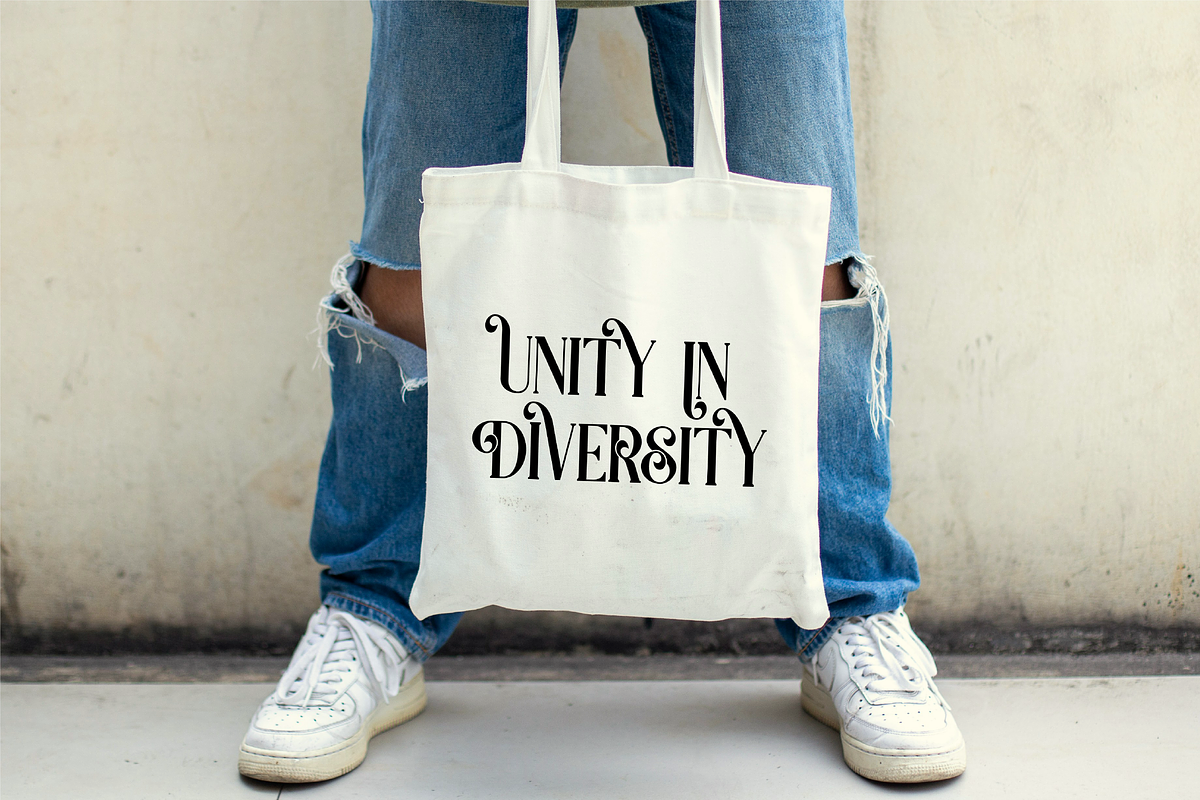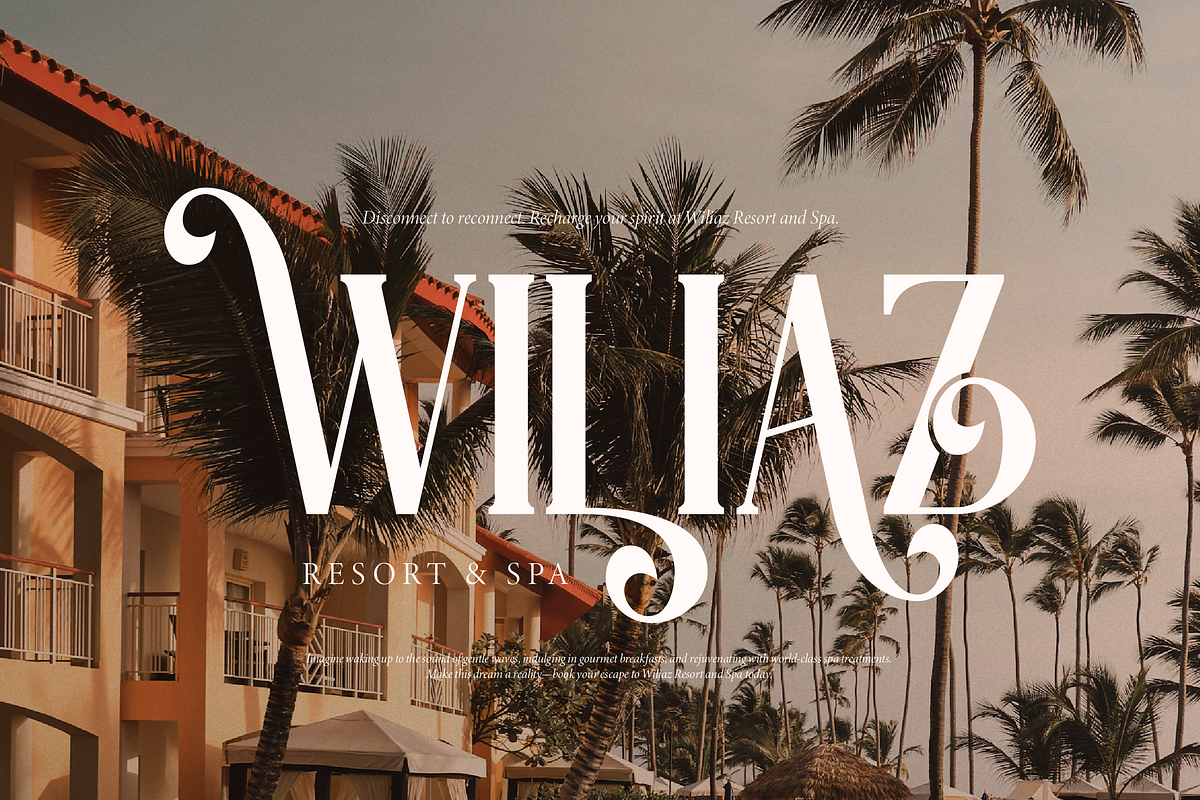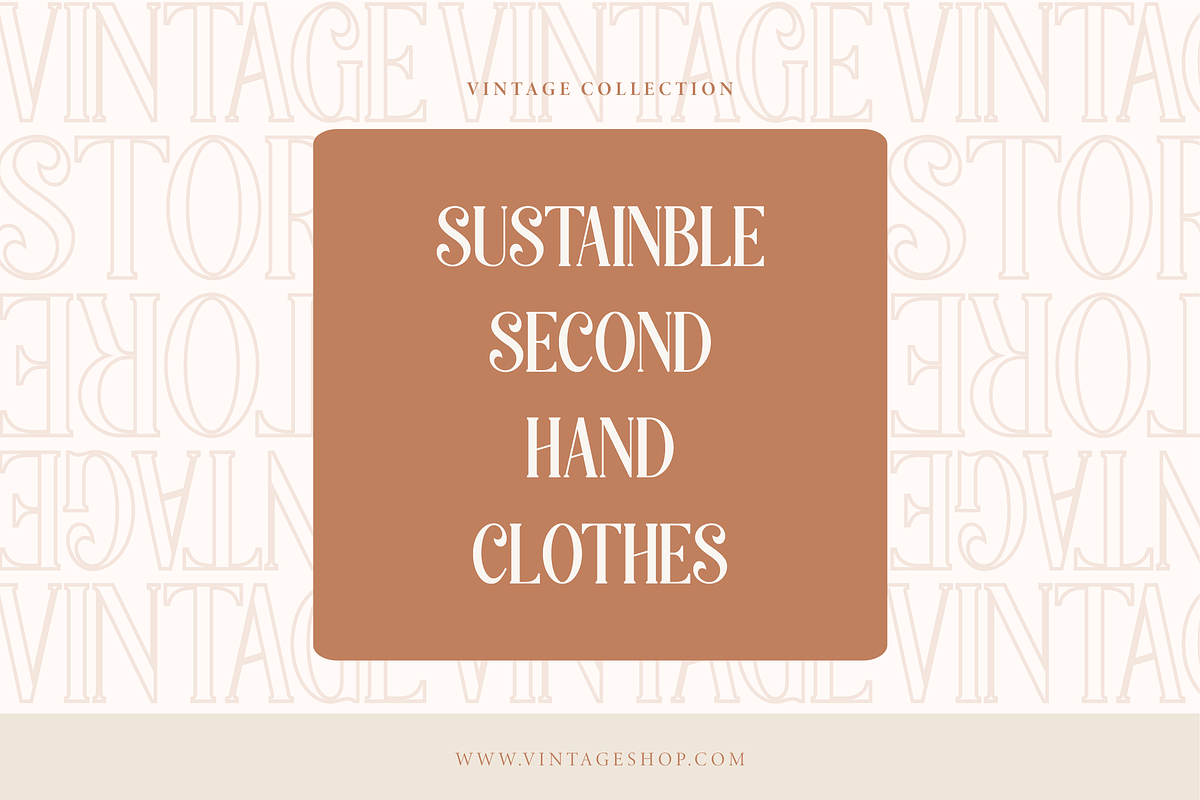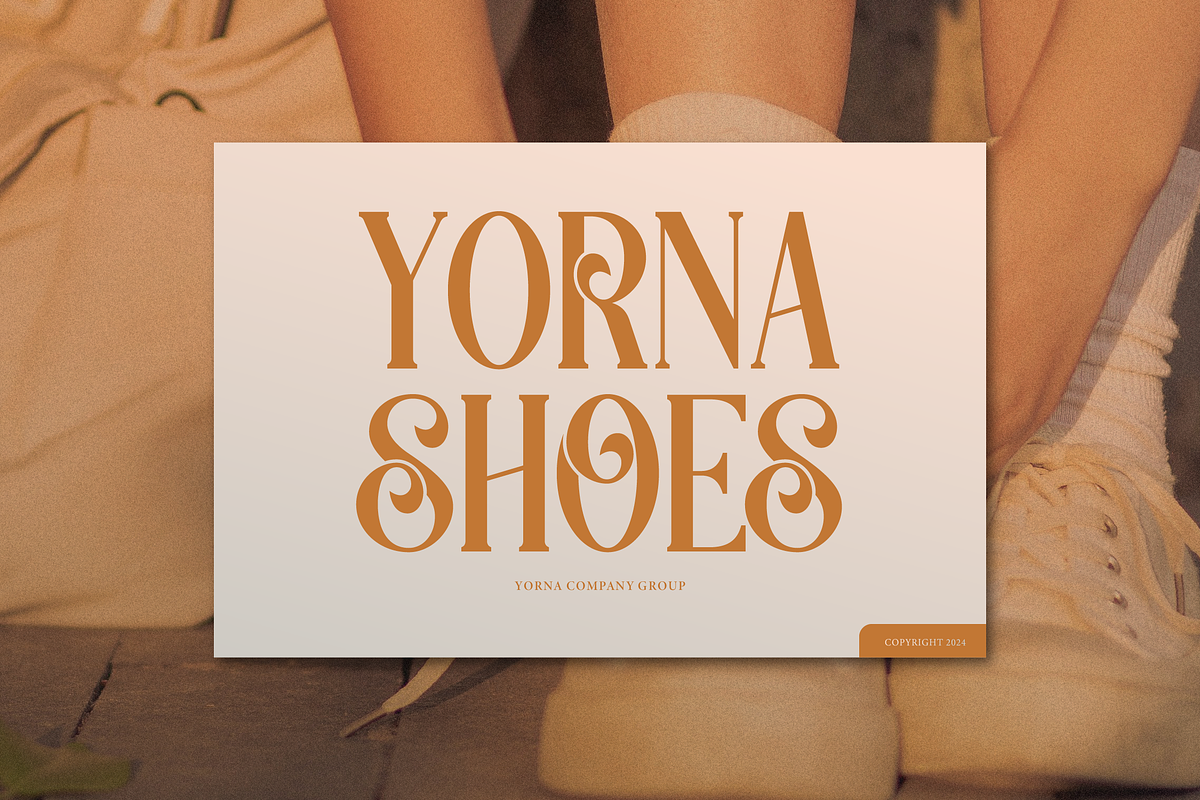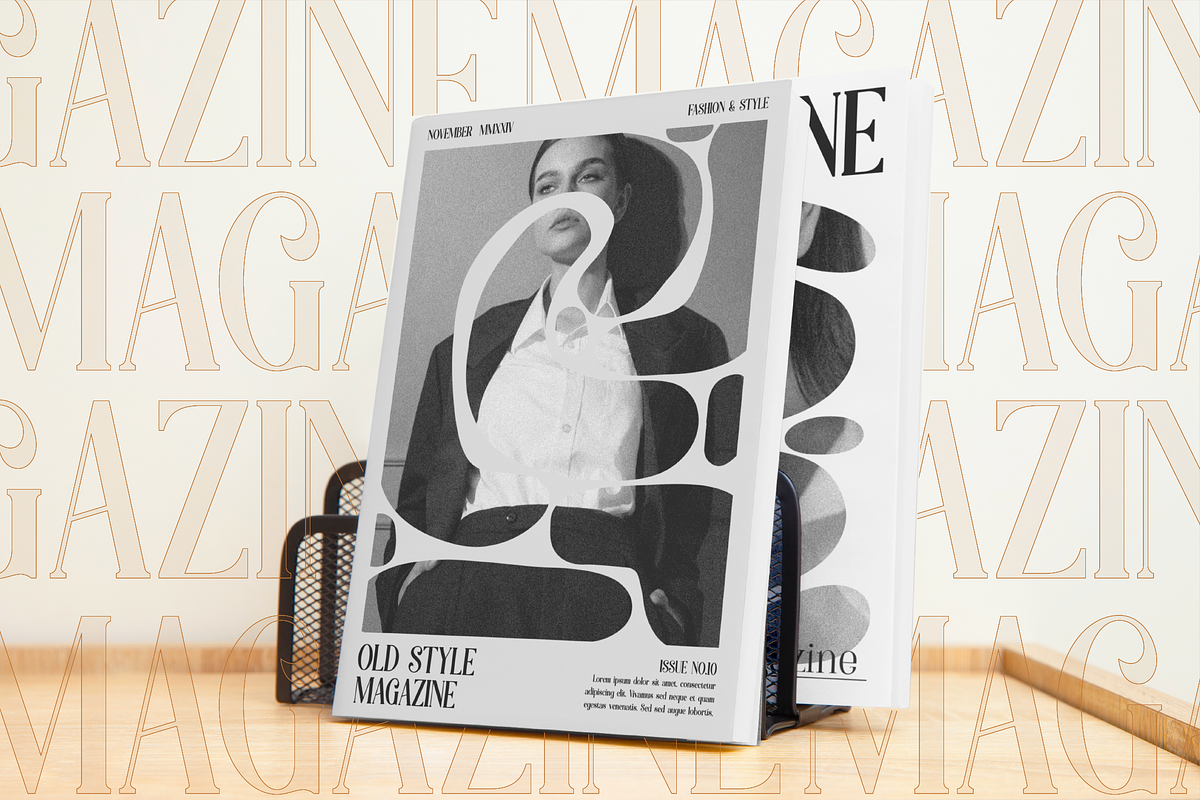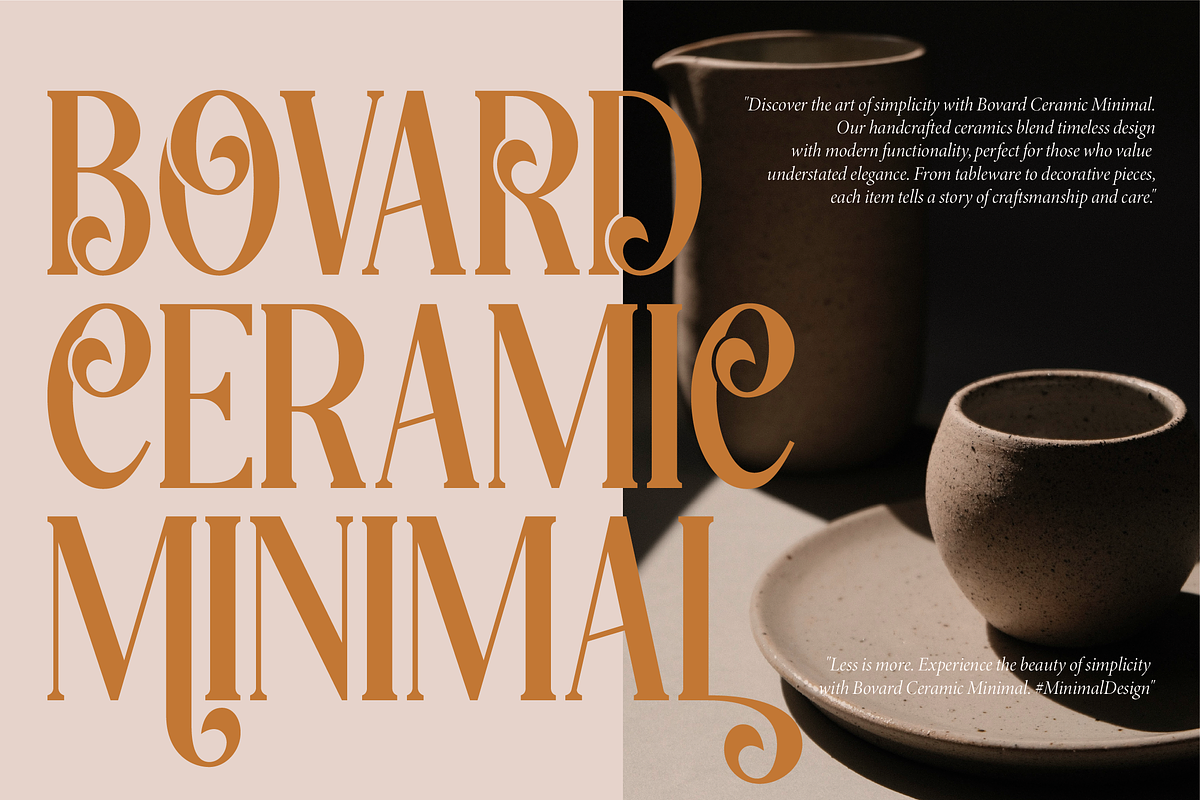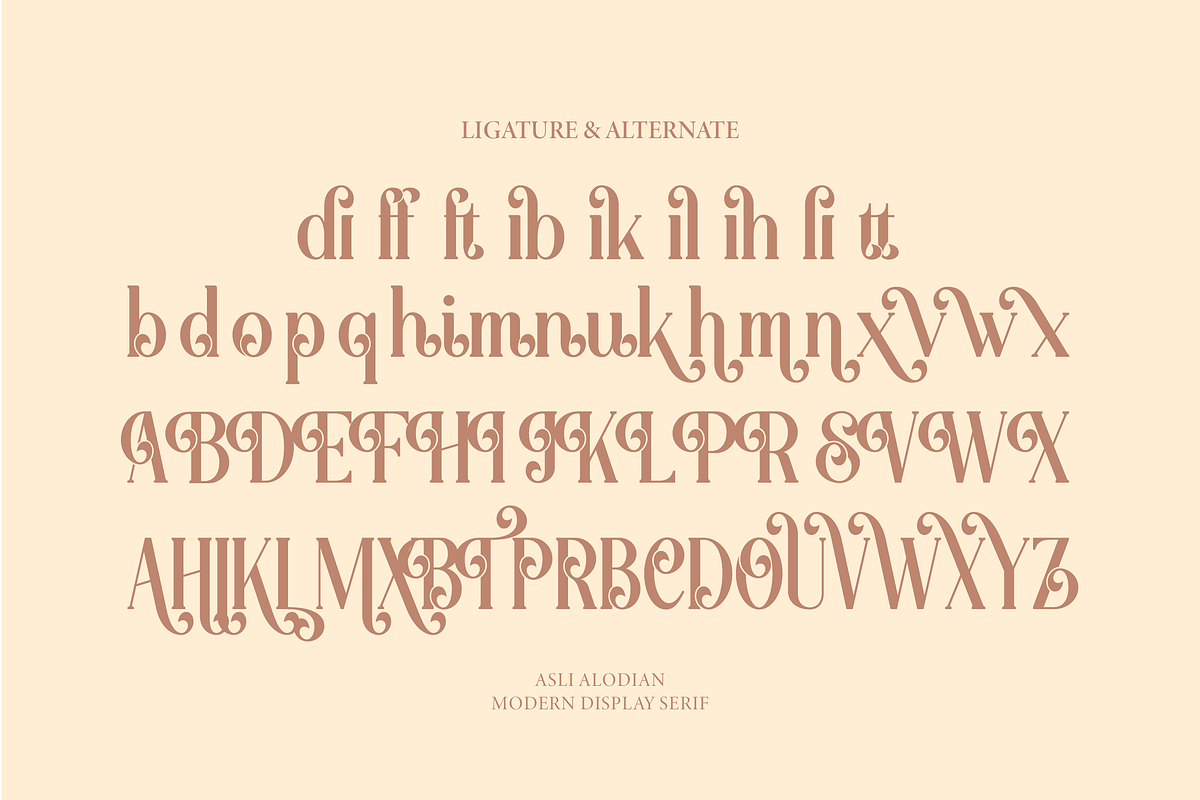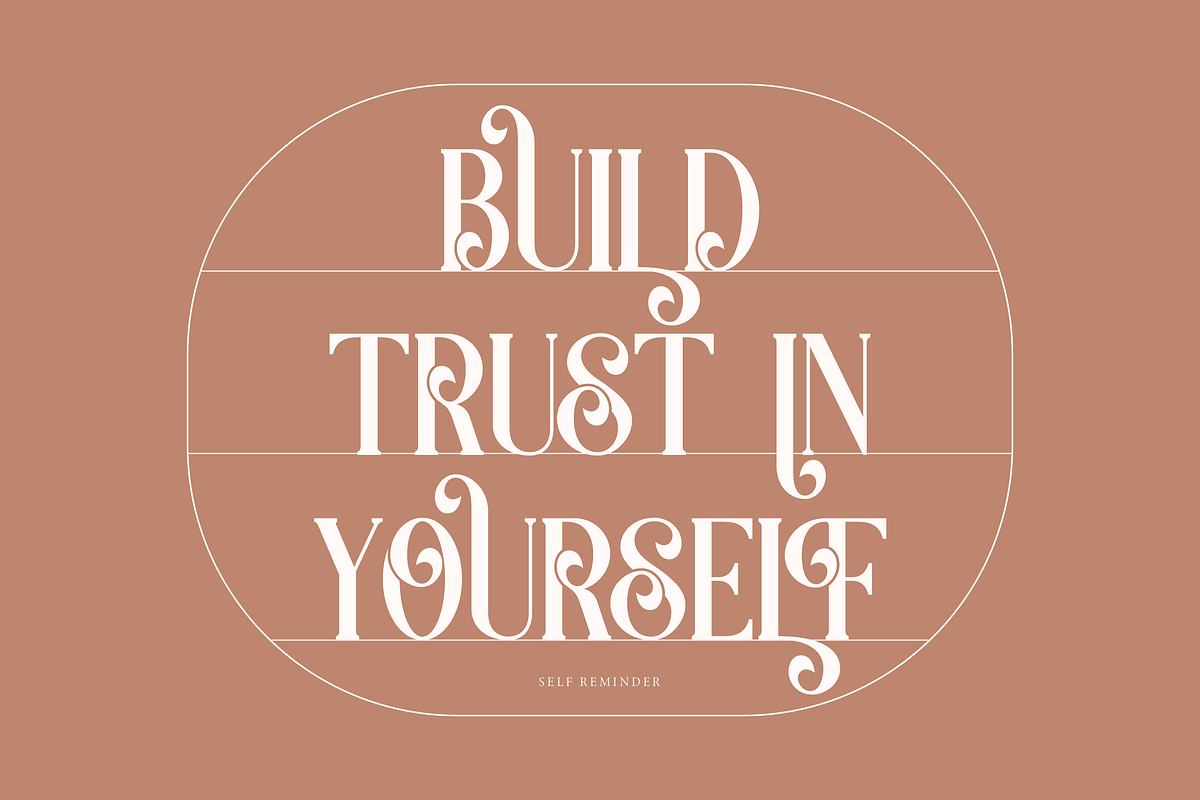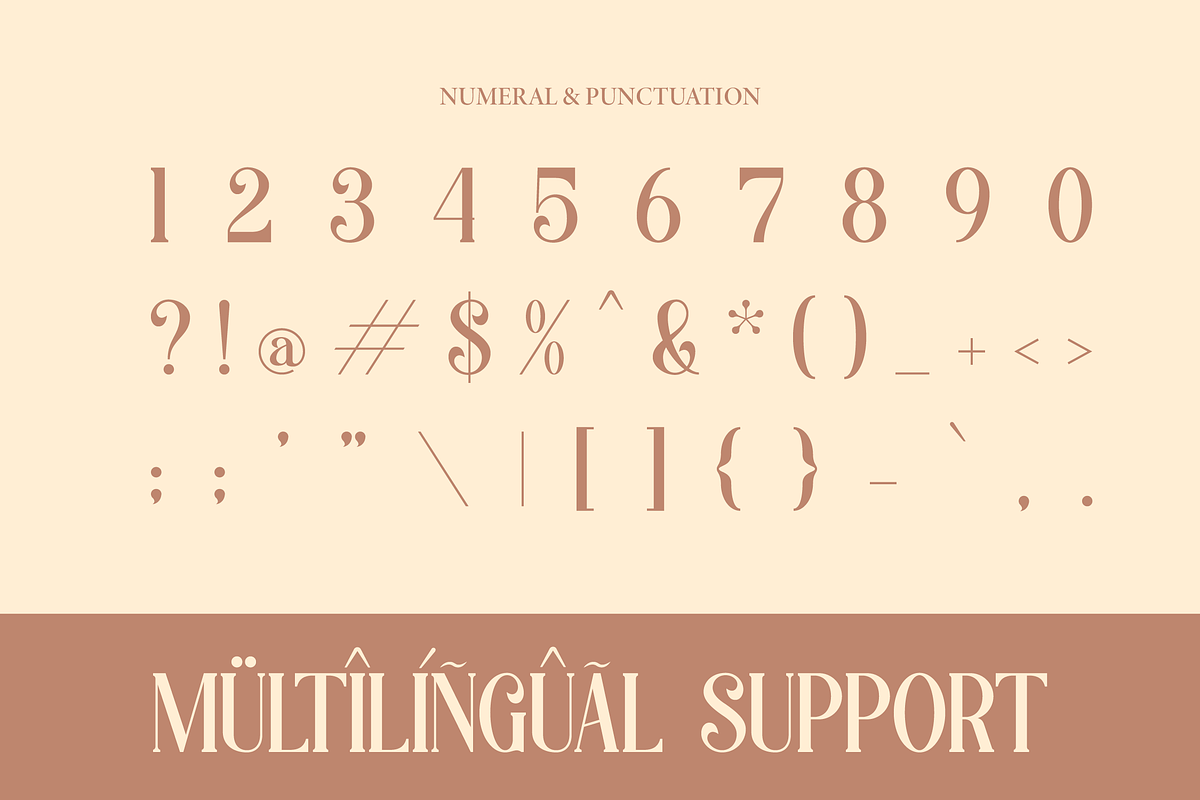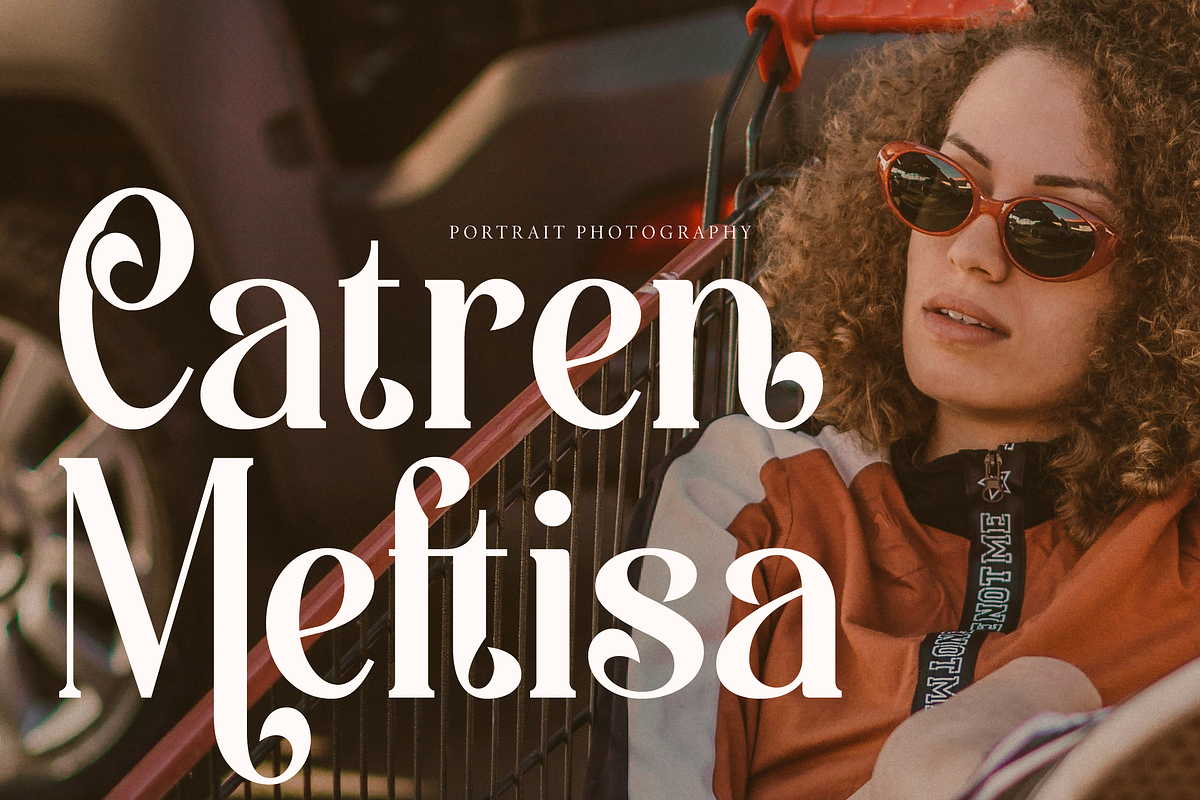
Aslin Alodian | Modern Display Serif
Aslin Alodian | Modern Display Serif, from Denustudios, suitable for any projects such as: logos, branding projects, homeware designs, product packaging, mugs, quotes, posters, shopping bags, t-shirts, book covers, name card, invitation cards, greeting cards, label, photography, watermark, special events, and all your other lovely projects that need a Modern Display Serif taste.